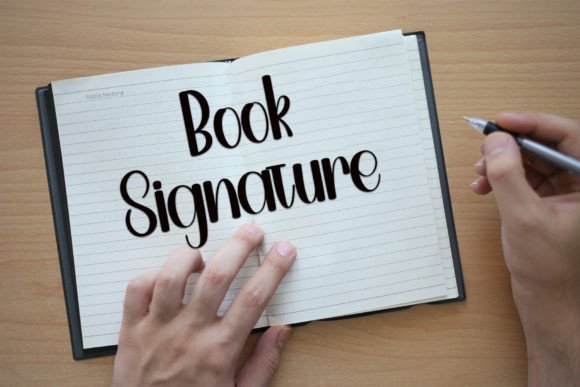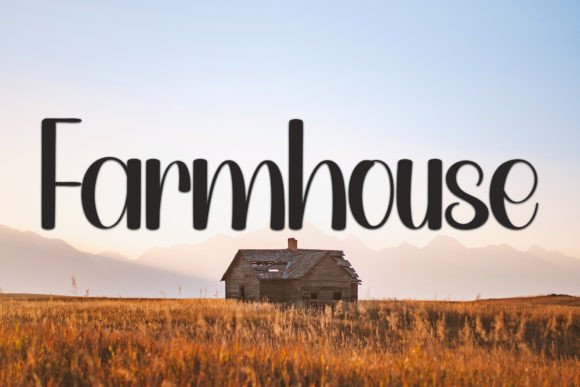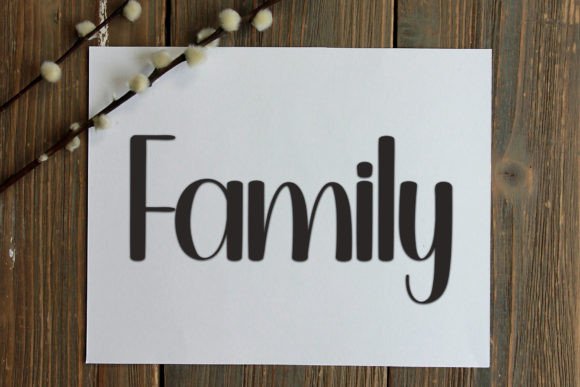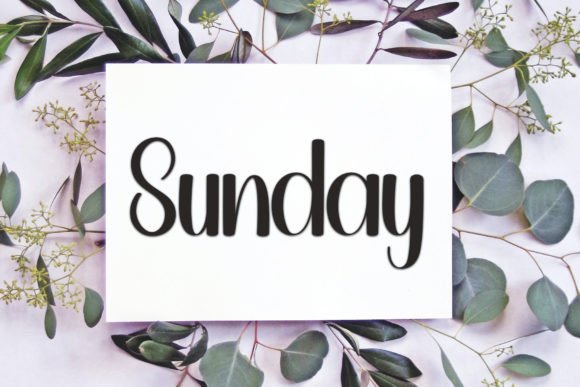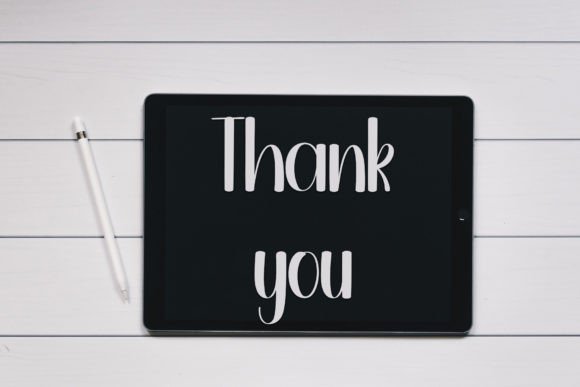
Introducing Diary Font: The Elegant and Timeless Choice for Your Design Projects
Are you looking for a font that can add a touch of elegance and sophistication to your design projects? Look no further than Diary Font, a beautiful handwritten font that is sure to capture your heart. With its incredibly distinct and timeless style, Diary Font is the perfect choice for designers and crafters who want to create spectacular designs that stand out from the crowd.
What Makes Diary Font So Special?
Diary Font is a neat and beautiful handwritten font that is described by an elegant touch. Its unique and distinctive style is perfect for a wide range of design projects, from wedding invitations and party decorations to branding and advertising materials. The font’s classic and timeless look makes it an excellent choice for designers who want to create designs that are both modern and nostalgic.
One of the things that sets Diary Font apart from other fonts is its incredible legibility. The font’s letters are carefully crafted to be easy to read, making it perfect for use in both digital and print materials. Whether you’re creating a website, a brochure, or a social media post, Diary Font is sure to make your text stand out and engage your audience.
Diary Font is a versatile font that can be used in a wide range of design projects. Here are just a few examples of how you can use this beautiful font:
- Wedding Invitations: Add a touch of elegance and romance to your wedding invitations with Diary Font. Its classic and timeless style makes it perfect for wedding decorations, programs, and other materials.
- Branding and Advertising: Use Diary Font to create eye-catching branding and advertising materials that stand out from the crowd. Its unique and distinctive style makes it perfect for logos, business cards, and other marketing materials.
- Party Decorations: Create beautiful and unique party decorations with Diary Font. From birthday party invitations to baby shower decorations, this font is sure to add a touch of elegance and sophistication to your designs.
- Digital Designs: Diary Font is perfect for digital designs, including social media posts, website headers, and email newsletters. Its clean and legible style makes it easy to read on a variety of devices.
Why Choose Diary Font?
There are many reasons why Diary Font is an excellent choice for designers and crafters. Here are just a few:
- Unique and Distinctive Style: Diary Font has a unique and distinctive style that sets it apart from other fonts. Its elegant and timeless look makes it perfect for designers who want to create designs that stand out from the crowd.
- Highly Legible: Diary Font is highly legible, making it perfect for use in both digital and print materials. Its clear and clean style ensures that your text is easy to read, even at small sizes.
- Versatile: Diary Font is a versatile font that can be used in a wide range of design projects. From wedding invitations to branding and advertising materials, this font is sure to be a valuable addition to your design toolkit.
- Elegant and Sophisticated: Diary Font has an elegant and sophisticated style that is perfect for designers who want to create designs that are both modern and nostalgic. Its classic and timeless look makes it an excellent choice for a wide range of design projects.